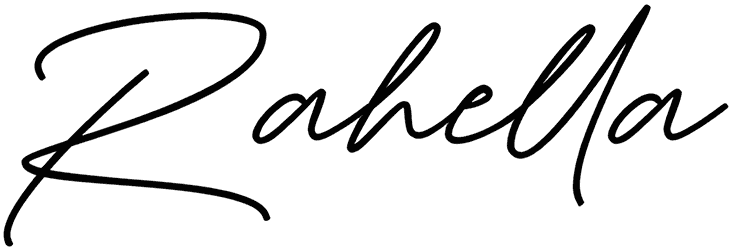
Rahella Font
Rahella is an adorable script font that comes with a cursive style and leads to a feeling of personalization, professionalism, momentum, or breathtaking. Since this handwritten font is designed with a soft texture and sophisticated flow, reading some of its characters would be a little bit tricky for some people, but considering all its benefits, that won’t be a serious problem.